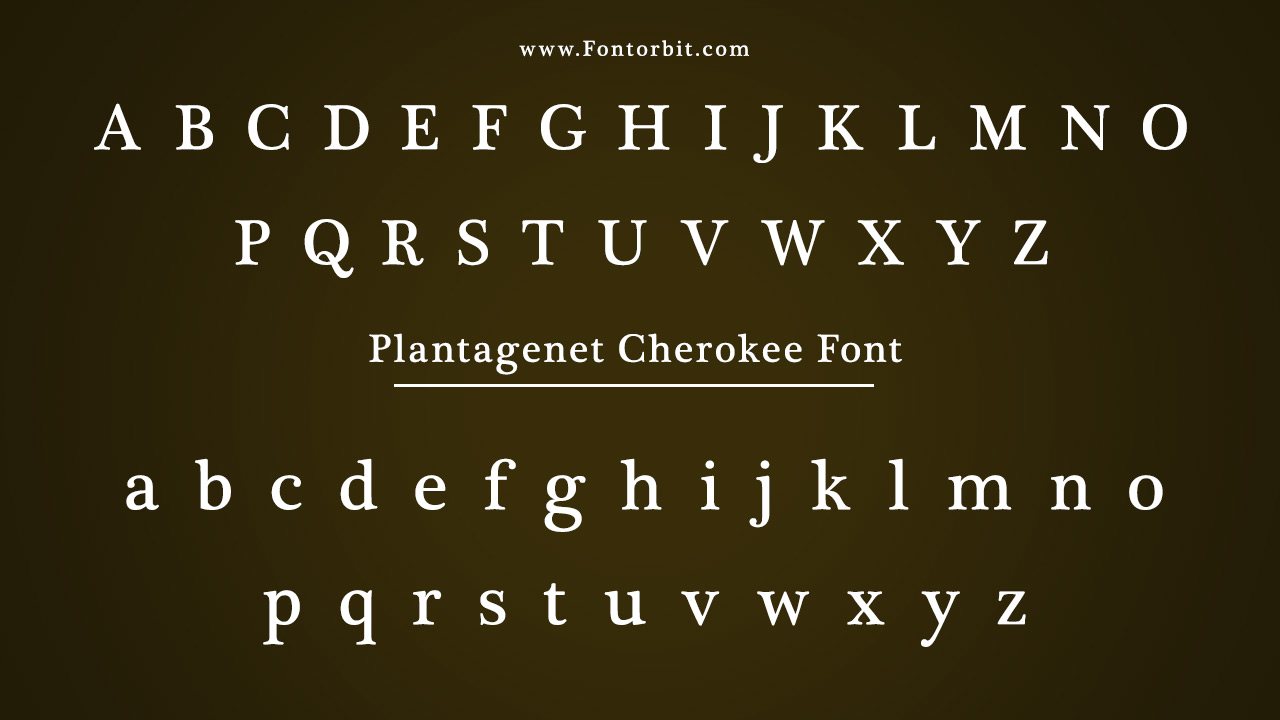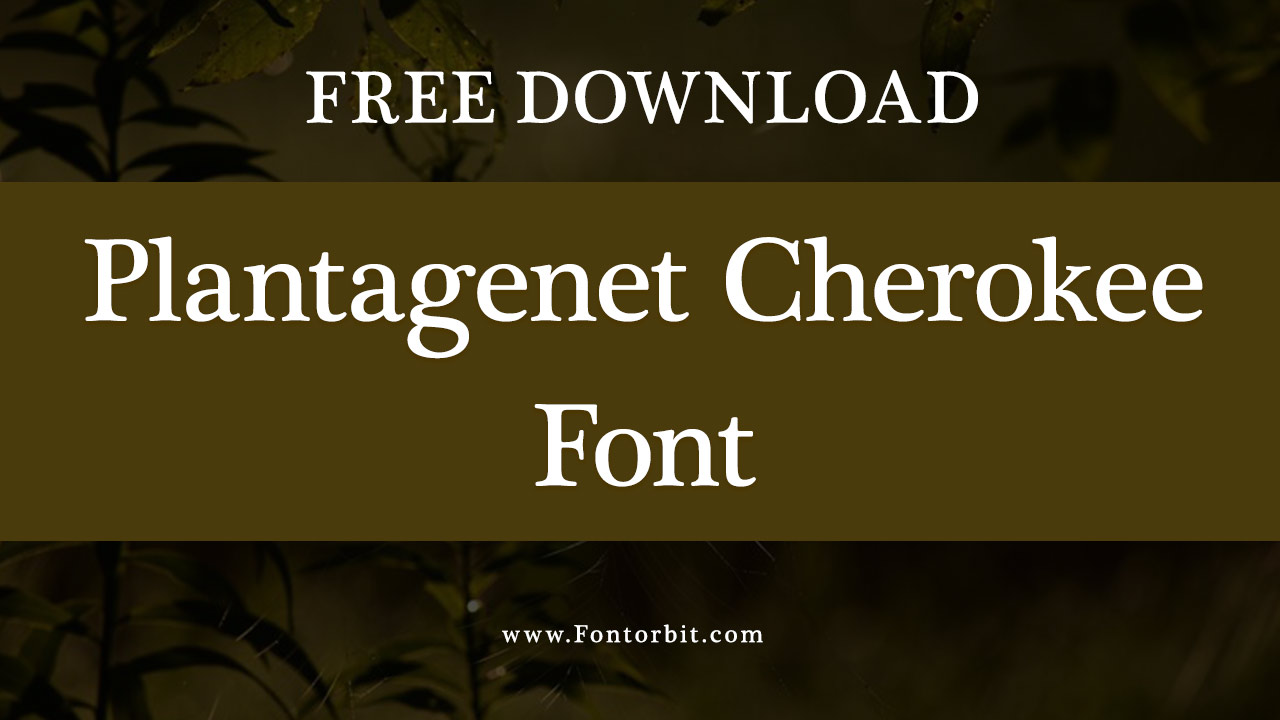
The Plantagenet Cherokee Font is a sophisticated typeface designed by Ross Mills of Tiro Typeworks. Renowned for its elegant style and dedication to preserving the Cherokee syllabary, this font bridges the gap between tradition and contemporary typography. It offers a robust character set, including unique glyphs and special characters, making it an ideal choice for designers, educators, and content creators.
Plantagenet Cherokee Font Family
The Plantagenet Cherokee Font Family comes with eight distinctive styles, blending functionality and artistry. Each variant caters to a wide range of design needs, from formal documents to creative projects.
Font Variants:
- Plantagenet Cherokee Light Italic
- Plantagenet Cherokee Book Italic
- Plantagenet Cherokee Medium Italic
- Plantagenet Cherokee SemiBold Italic
- Plantagenet Cherokee Bold Italic
- Plantagenet Cherokee ExtraBold Italic
- Plantagenet Cherokee Heavy Italic
- Plantagenet Cherokee Ultra Italic
Using Occasions Of The Plantagenet Cherokee Font
The versatility of the Plantagenet Cherokee Font makes it suitable for an array of design and content applications. Its elegant character map and Unicode compliance enable seamless use in multilingual projects, especially those involving the Cherokee language.
Common Uses:
- Educational Content: Perfect for teaching materials, especially for the Cherokee syllabary and language.
- Cultural Projects: Celebrates Native American heritage in logos, branding, and typography.
- Digital Design: Adds authenticity to websites, apps, and social media visuals.
- Print Materials: Ideal for book covers, brochures, and posters.
- Typography Projects: Excellent for creating unique headlines, titles, and creative content.
Where This Font Is Found In Use
This font’s distinctive design is prominently used in cultural preservation projects, branding for Native American organizations, and educational resources. Its elegant strokes and historical significance make it a popular choice among designers creating meaningful and visually striking works.
The Plantagenet Cherokee Font is more than a typeface; it’s a cultural bridge that connects the rich history of the Cherokee language with modern design needs. Its comprehensive font family, paired with its unique character map and elegant style, ensures it stands out in any project. Whether you’re creating educational content, branding materials, or print designs, this font offers the versatility and sophistication to elevate your work.
1.What Is The Plantagenet Cherokee Font And Its Significance?
The Plantagenet Cherokee Font, designed by Ross Mills, is a typeface rooted in preserving the Cherokee syllabary. It is a Unicode-compliant font that supports the Cherokee language, making it a valuable tool for cultural preservation, education, and print content.
3.What Styles Are Available In The Plantagenet Cherokee Font Family?
The Plantagenet Cherokee Font Family includes eight styles, such as Light Italic, Medium Italic, and more. These styles make it a versatile option for a variety of design projects, from simple logos to elaborate typography.
4.How Does The Plantagenet Cherokee Font Support The Cherokee Language?
This Unicode font accurately represents the Cherokee script, making it an essential resource for writing in the Cherokee language. Its character map is well-suited for digital and print content, helping to promote linguistic preservation.
5.What Are The Best Use Cases For The Plantagenet Cherokee Font?
The font is ideal for designers working on branding projects, logos, and fun designs. It is particularly useful in projects related to Native American culture, writing systems, and information dissemination.
Yes, some similar fonts include Aboriginal Serif, Aboriginal Sans, and KoPub Batang Bold Font. These fonts, like Plantagenet Cherokee, are popular for their focus on cultural representation and unique font styles.
7.Why Is The Plantagenet Cherokee Font Considered One Of The Popular Fonts?
The font’s association with the Cherokee Nation and its ability to support the Cherokee syllabary have made it a favorite among educators, designers, and cultural enthusiasts. Its modern yet old-school aesthetic also makes it stand out among new fonts in the market.